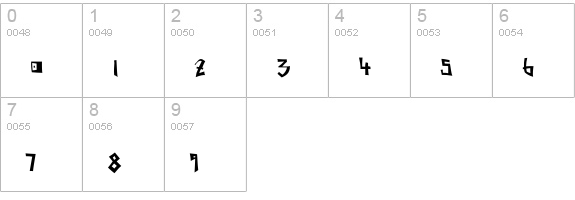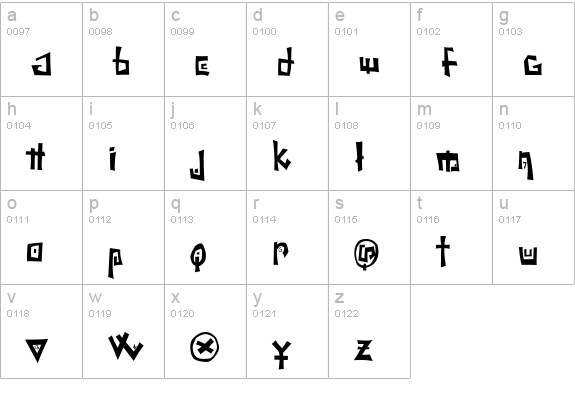
Riot Font Details
Riot font is a bold and dynamic typeface that exudes energy and modernity. Its sharp edges and strong lines make a powerful statement, perfect for grabbing attention in any design project. Whether used for headlines, posters, or branding materials, Riot font demands to be noticed. The best part? Riot font is completely free to download at FontsMarket.com. This means you can enhance your designs with this striking font without breaking the bank. Don't miss out on the opportunity to add a touch of rebellious flair to your projects with Riot font, now easily accessible for free at FontsMarket.com.